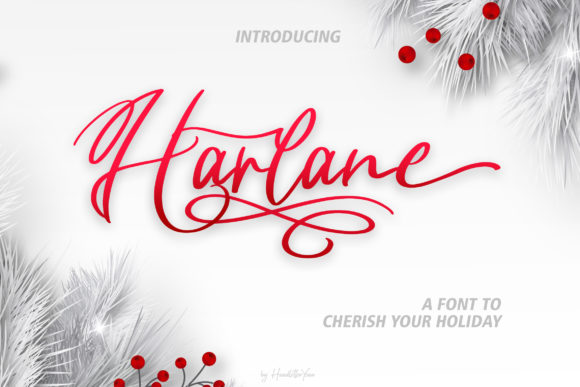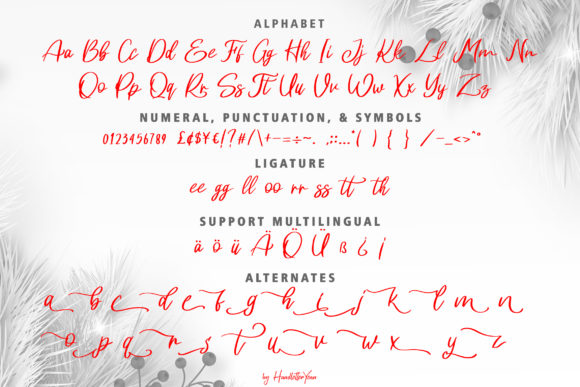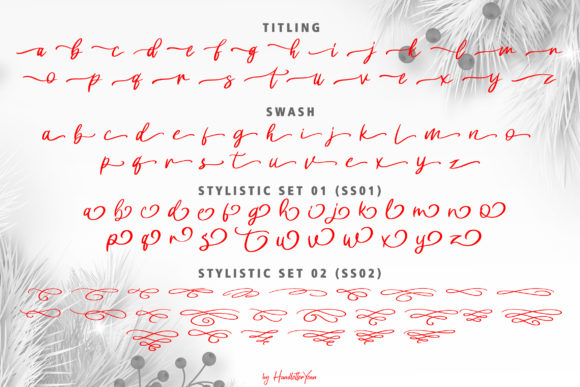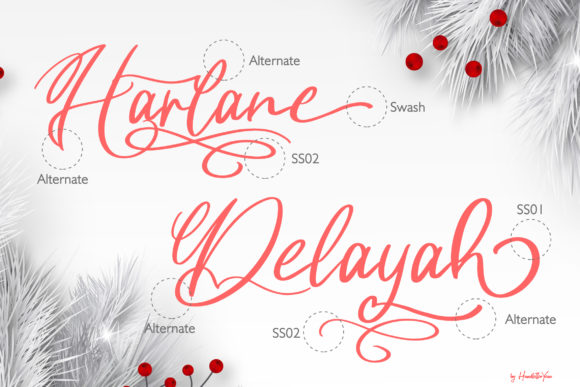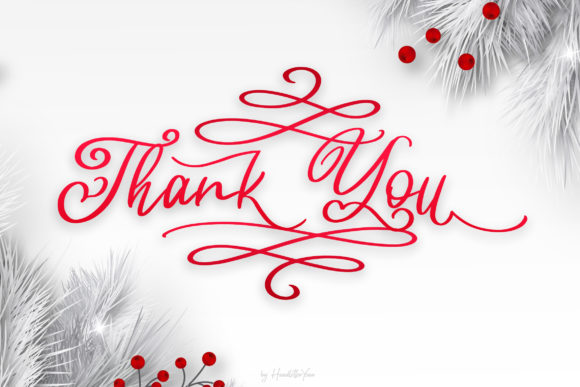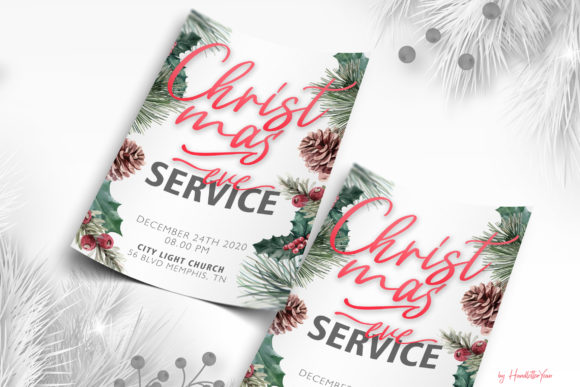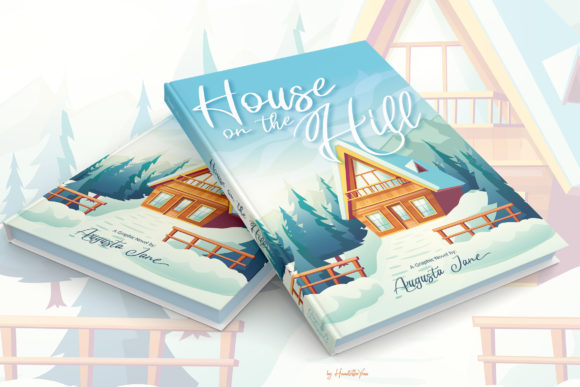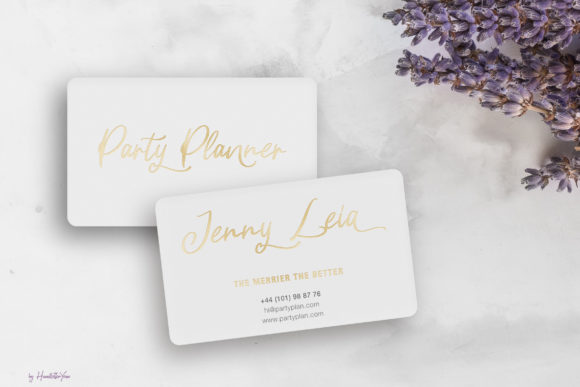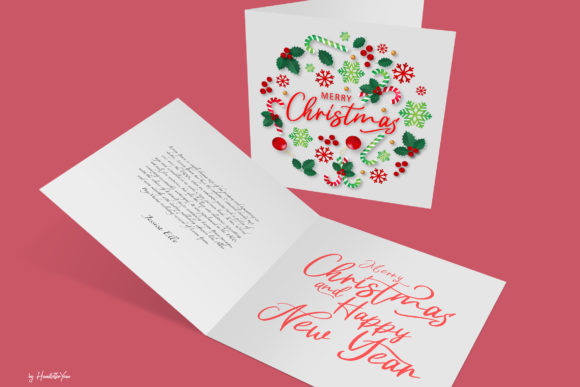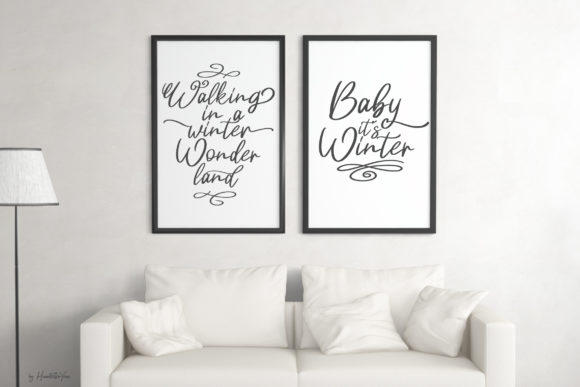
HomeScript FontsHarlane Font Script Fonts Harlane Font FacebookXPinterestWhatsApp Harlane Font Poster 2 Harlane Font Poster 3 Harlane Font Poster 4 Harlane Font Poster 5 Harlane Font Poster 6 Harlane Font Poster 7 Harlane Font Poster 8 Harlane Font Poster 9 Harlane Font Poster 10 Harlane Font Poster 11 Harlane Font Poster 12 Harlane Font Poster 13 About Harlane Font Harlane is a lovely script font featuring flowing curves. Fall in love with its charming look & feel! DOWNLOAD ON CREATIVE FABRICAThis font is sold and delivered by Creative Fabrica. Font Canyon may earn a commission if you buy through this link. People also explored Almitgor Font Under Beach Font Western Capital Font Grynchell Font Maxi Marker Font Hesty and Gita Font Dastend Font Amorflavor Font Viper Snake Font 462 0 TagsHarlane Font Previous articleHeartland Trio FontNext articleBaekrajan Font LEAVE A REPLY Cancel reply Comment: Please enter your comment! Name:* Please enter your name here Email:* You have entered an incorrect email address! Please enter your email address here Website: Save my name, email, and website in this browser for the next time I comment. Personal Use Free Colombia Personal Use Free Read more about this font Mini Story Personal Use Free Read more about this font Elsabetha Personal Use Free Read more about this font Borg Personal Use Free Read more about this font BLOG Modern Sans-Serif Fonts That Brands Love in 2025 In 2025, modern sans-serif fonts remain a top choice for brands looking to project clarity, professionalism, and... Fonts That Capture the Spirit of New York City How to Cut Any Font on Cricut: Convert a Font to SVG (Free) Where to Buy American Fonts Online in 2024